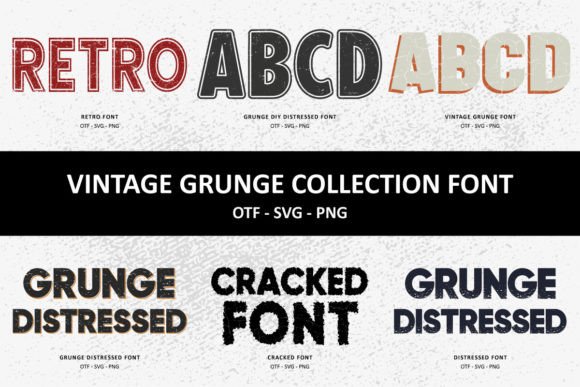
Vintage Grunge Collection: 6 Bold Fonts for Design
Typography often dictates the emotional tone of a design before a viewer even reads a single word. For creators seeking to evoke nostalgia, rebellion, or raw authenticity, the Vintage Grunge Collection offers a powerful solution. This curated set gathers six eye-catching vintage grunge-style fonts designed specifically to help your upcoming projects break away from the polished and predictable. Whether you are a seasoned graphic designer or a hobbyist just starting your creative journey, these unique fonts provide the texture and character needed to make your designs stand out in a crowded digital landscape.
Understanding the Appeal of Grunge Typography
The aesthetic of grunge typography is rooted in the idea of imperfection. Unlike clean, geometric sans-serifs that scream modernity and efficiency, grunge fonts mimic the look of worn paper, distressed metal, ink splatters, and weathered signage. The Vintage Grunge Collection captures this essence by blending classic letterforms with rough textures and irregular edges. When you add these fonts confidently to your projects, you introduce a layer of history and grit that resonates deeply with audiences looking for something authentic.
This style is particularly effective because it feels human-made. In an era where digital perfection is the norm, the slight imperfections found in these typefaces create a sense of warmth and approachability. They suggest a story behind the brand or message, implying durability and timelessness. For entrepreneurs and small business owners, this can be a strategic advantage, helping to build a brand identity that feels established and grounded rather than fleeting.
What Is Included in the Package?
Practical Applications for Your Creative Projects
The versatility of the Vintage Grunge Collection means it is not limited to a single industry or medium. Its rugged charm translates beautifully across various physical and digital products. Here are some realistic ways you can utilize these assets:
- Apparel and Merchandise: T-shirts and hoodies are perhaps the most common application for grunge fonts. The distressed look pairs naturally with cotton textures, creating a cohesive streetwear or band-merch vibe. Whether you are designing for a local skate shop or a music festival, these fonts instantly communicate a specific subculture aesthetic.
- Drinkware and Accessories: Mugs, tumblers, and phone cases benefit greatly from bold, textured type. A custom tumbler with a grunge slogan stands out on a desk more effectively than one with a standard font. Similarly, phone cases featuring these styles appeal to users who want their tech accessories to reflect a personal, edgy style.
- Print Media and Stationery: Business cards, invitations, and greeting cards can take on a sophisticated yet rebellious edge when paired with vintage grunge elements. Imagine a wedding invitation for an outdoor rustic wedding or a birthday card for a friend who loves rock music; the right font choice sets the entire mood.
- Stickers and Decals: Stickers are a massive market for independent creators. Because stickers are often applied to laptops, water bottles, and skateboards, they need to look durable and cool. The included SVG files make it easy to cut these designs precisely for vinyl applications.
- Digital Marketing: Bloggers and marketers can use these fonts for social media headers, YouTube thumbnails, and blog post titles. In the fast-scrolling environment of Instagram or TikTok, a grunge header grabs attention immediately, signaling that the content within is bold and unapologetic.
Ideas for Beginners and Hobbyists
If you are new to design, the Vintage Grunge Collection removes many barriers to entry. You do not need to spend hours manually adding noise filters or distressing effects to your text. The work is already done for you. Start simple by typing a short phrase on a plain background. Experiment with different colorsβblack and white often works best to let the texture shine, but deep reds, rust oranges, and muted greens also complement the grunge aesthetic well.
Finally, remember that great design often lies in the balance. Pairing a heavy grunge font with a clean, simple sans-serif for supporting text can create a striking contrast that enhances both elements. By understanding the strengths and limitations of the Vintage Grunge Collection, you can leverage these tools to create work that is not only visually stunning but also strategically sound. With nine fonts and a suite of bonus graphics at your disposal, the potential for your next project is limitless.